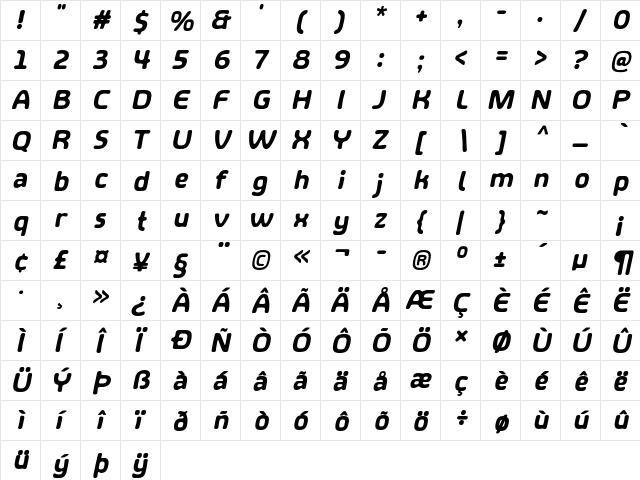
Share Happiness Around Italic Font Preview
Design Context for Share Happiness Around Typeface
Share Happiness Around uses gentle rounded endings to create a warm, inviting typographic personality — less corporate than geometric sans, more refined than playful display fonts. Its italic angle brings a sense of urgency and motion to the letterforms.
Well-suited to UI design, mobile interfaces, and any brand that wants approachability without sacrificing clarity.
Font Pairing: Pairs well with a rounded or humanist sans for body copy, maintaining the friendly tone without relying on Share Happiness Around to carry extended reading.
Pro Tip: Use Share Happiness Around for UI elements, app interfaces, and anywhere a friendly, approachable tone needs to be maintained without sacrificing clarity.